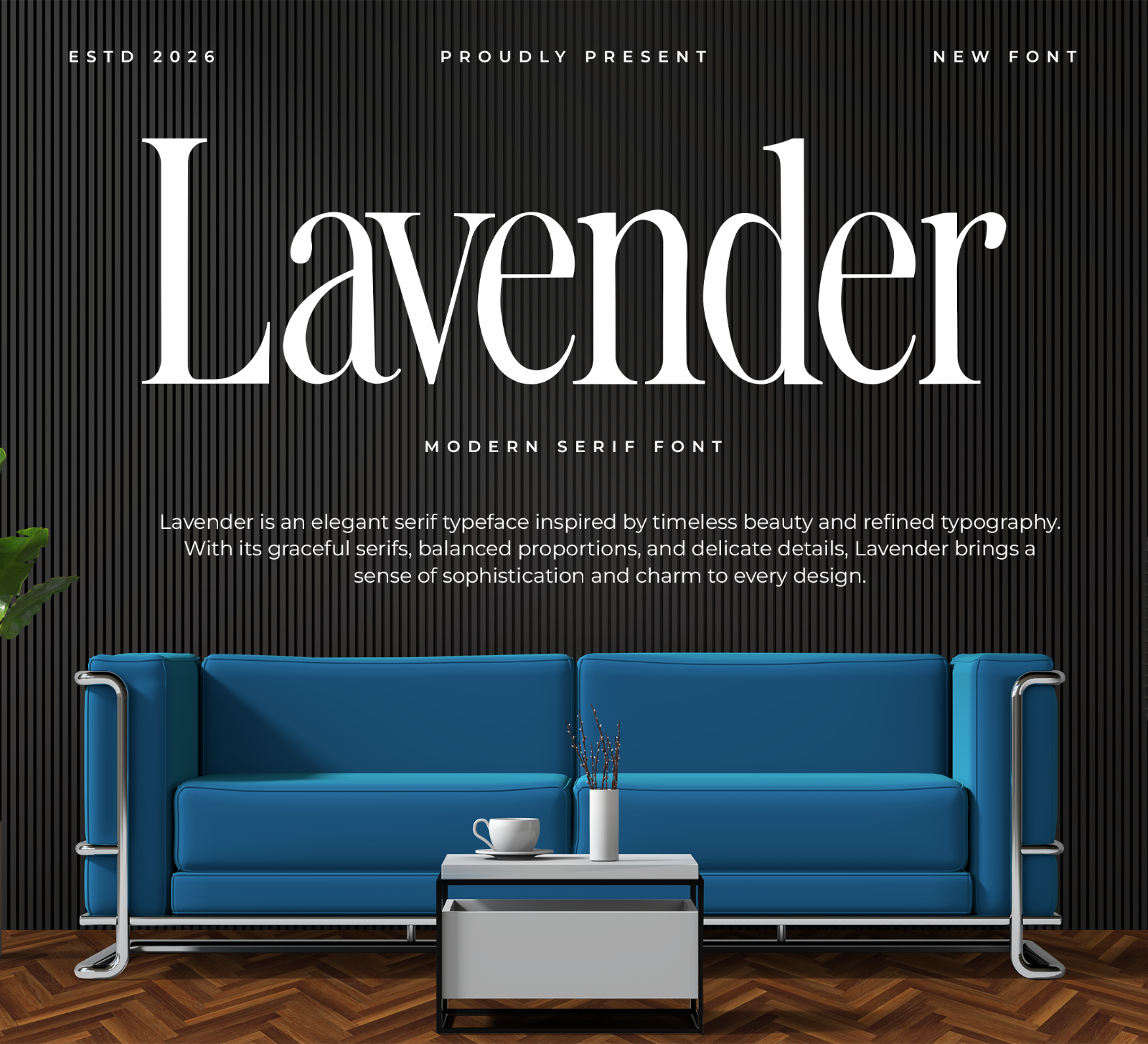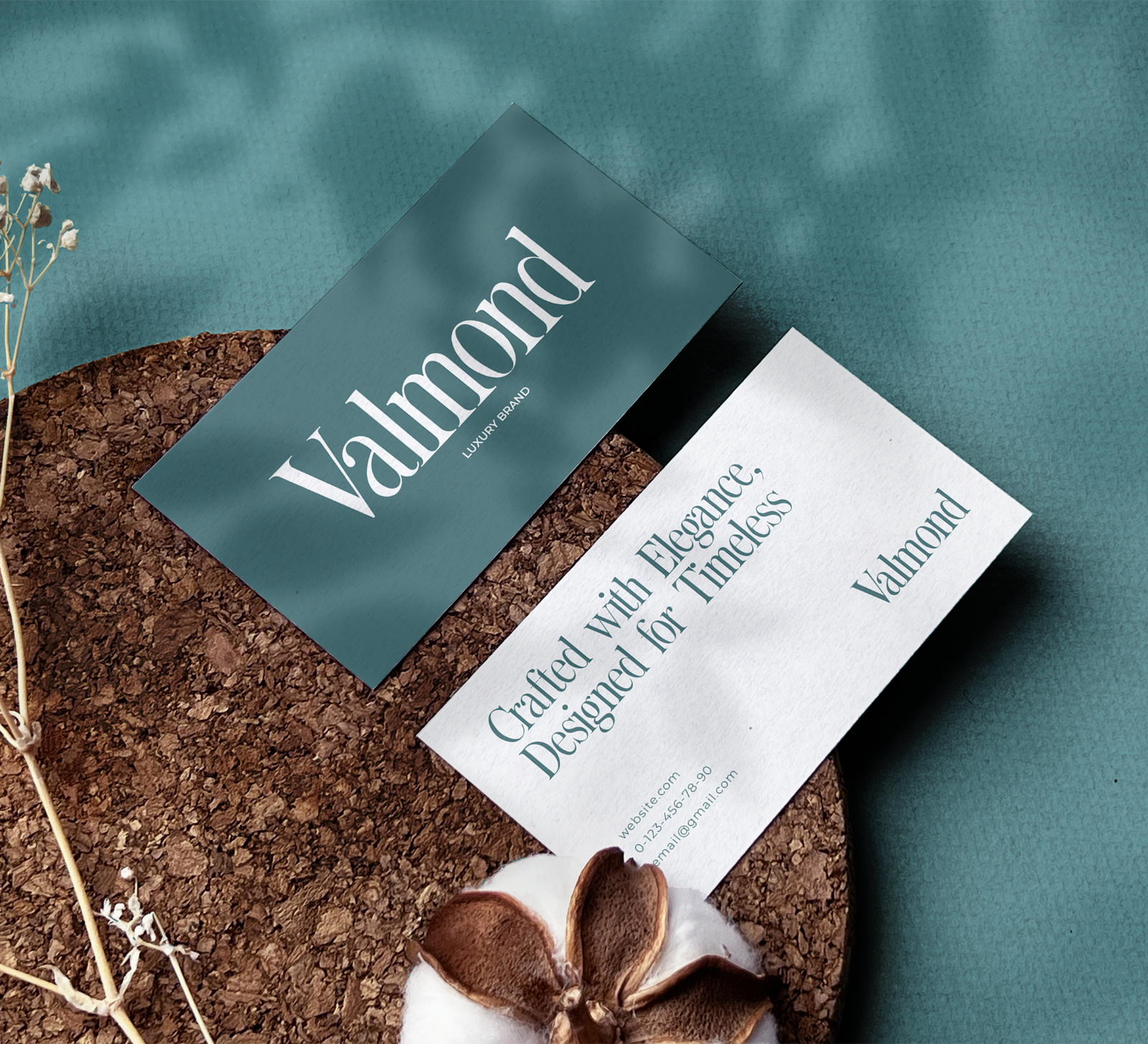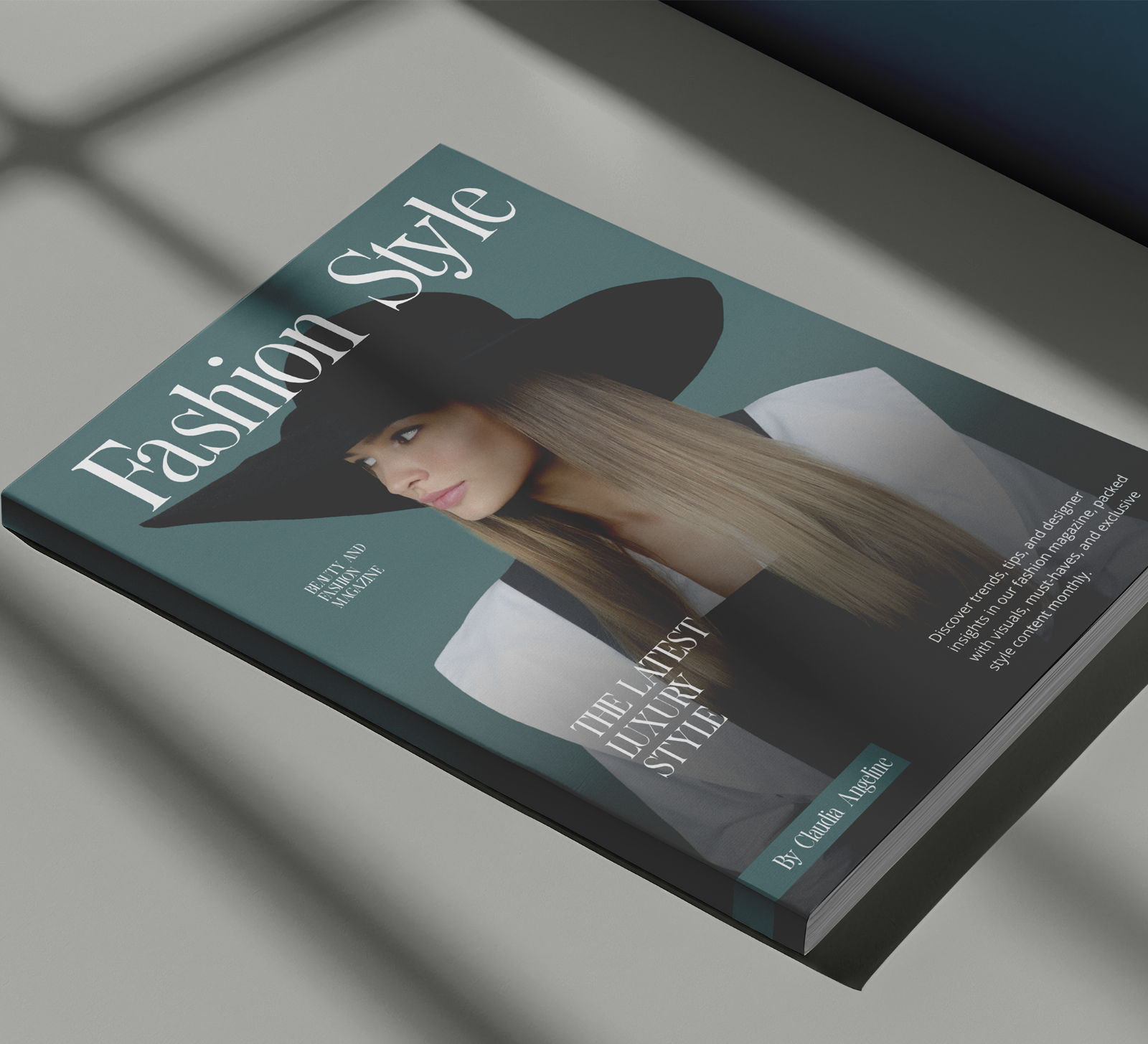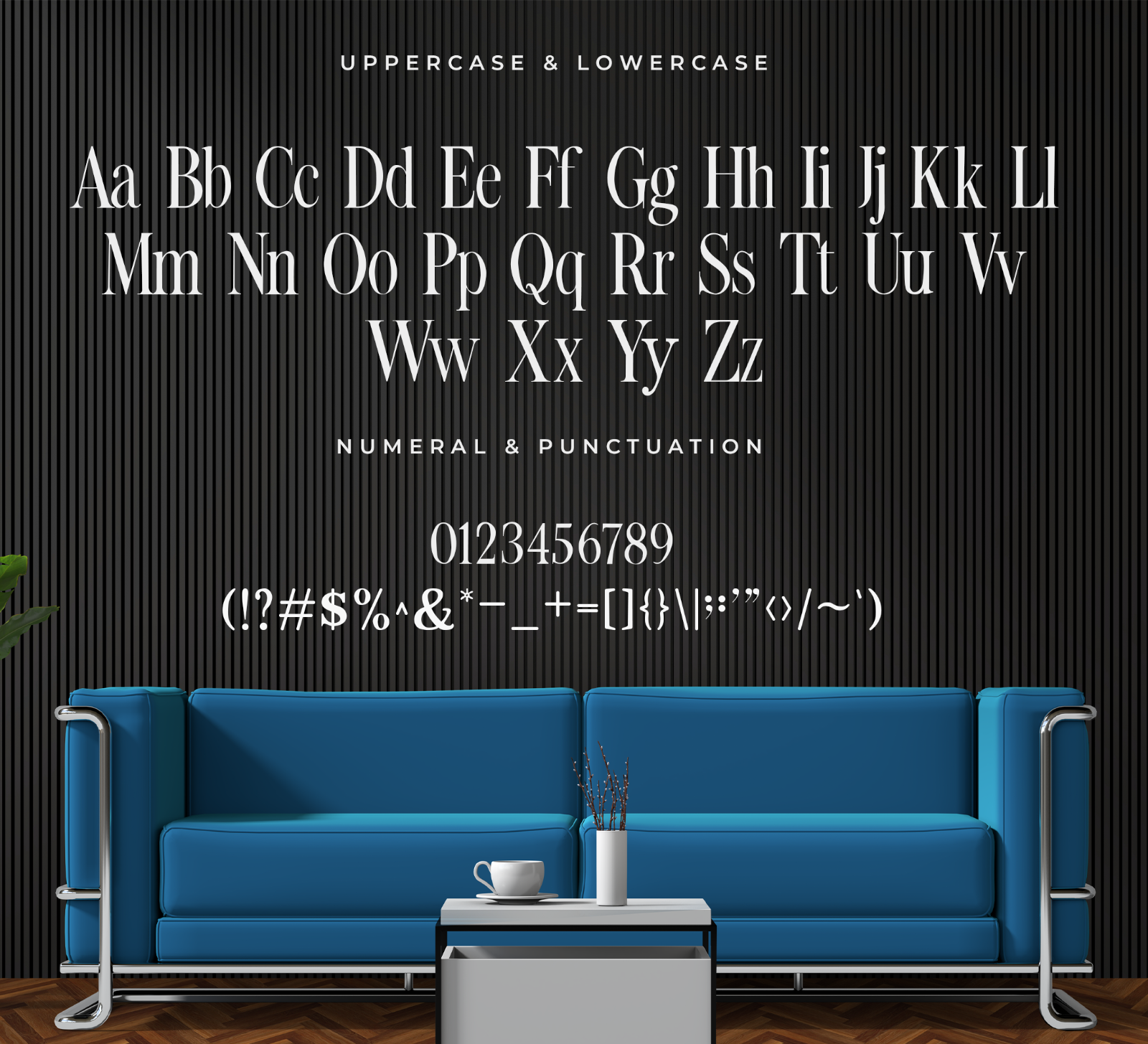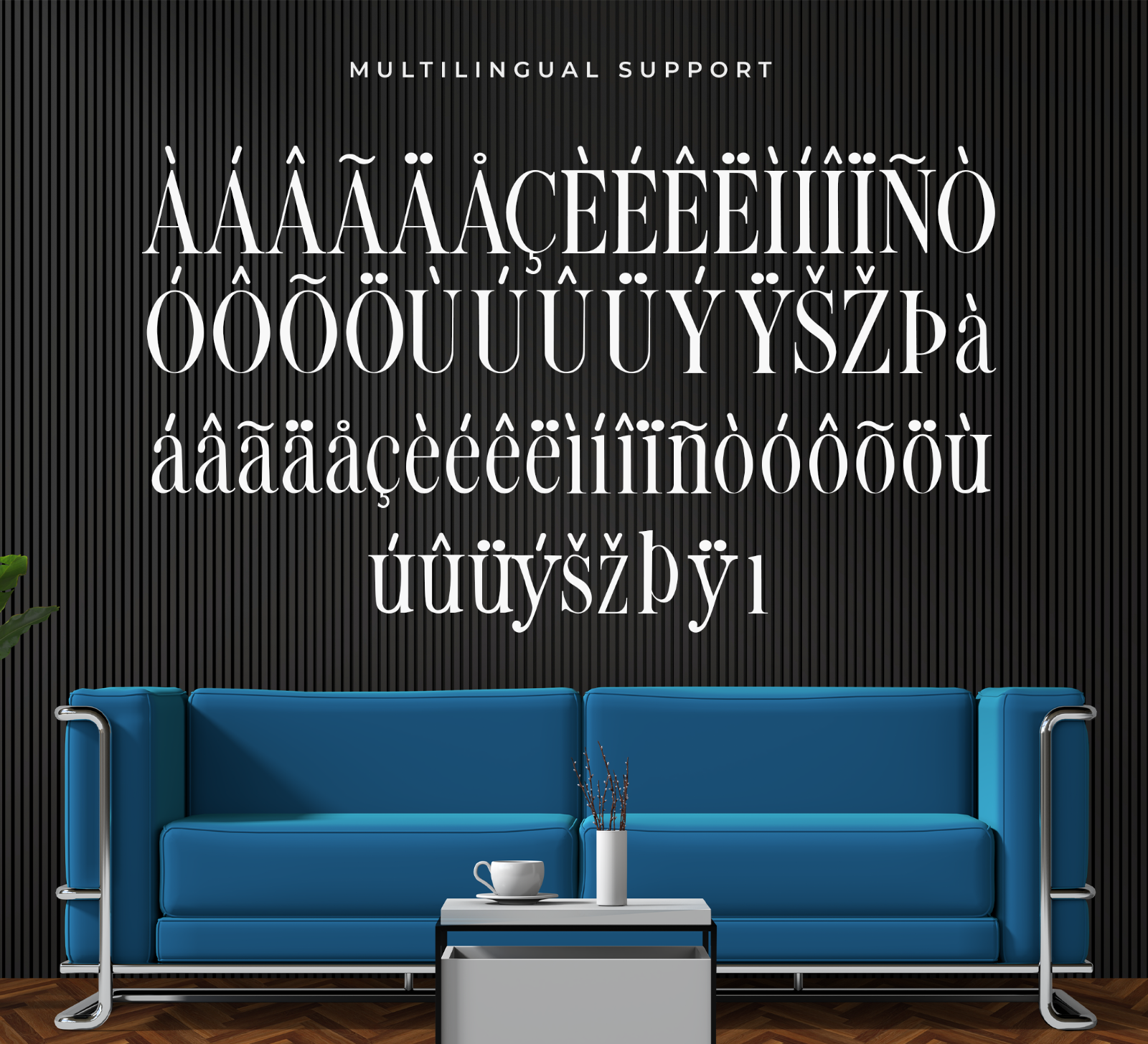
Lavender is a modern serif font with bold letterforms, soft curves, and a clean contemporary style. Its elegant and distinctive shape gives your designs a refined look while still feeling strong and easy to notice.
• Branding
• Logos
• Business cards
• Blog headers
• Quotes
• Editorial titles
• Packaging
• Creative typography